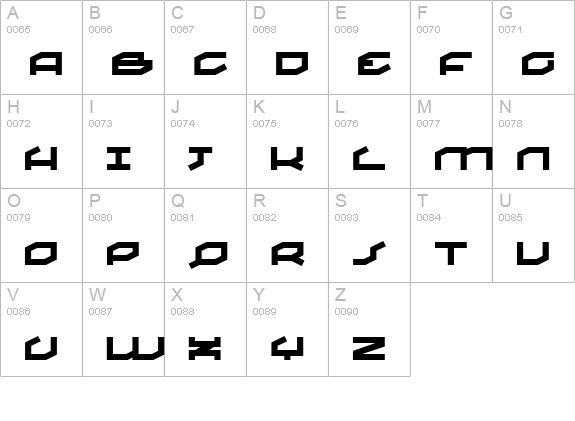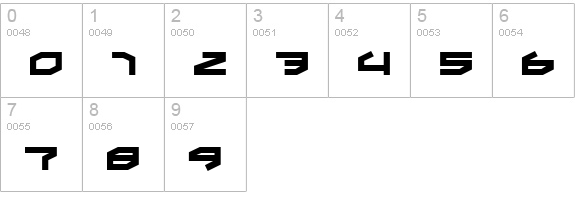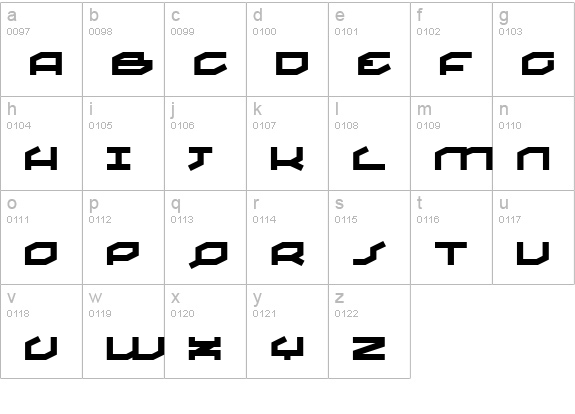
tricky Font Details
Introducing the mesmerizing Tricky Font, a captivating typeface that will add a touch of intrigue to any design project. This font is the perfect combination of elegance and playfulness, making it ideal for a wide range of creative ventures. With its unique and intricate letterforms, Tricky Font is sure to capture attention and leave a lasting impression. Each character has been carefully crafted with precision, resulting in a visually stunning display of typography. Whether you are designing a logo, poster, or website, this font will bring your ideas to life with its undeniable charm. What sets Tricky Font apart from others is not only its exceptional design but also its accessibility. It is available for free download exclusively at FontsMarket.com. This means that you can freely incorporate this font into your projects without any cost involved, making it a valuable asset for both personal and commercial use. The versatility of Tricky Font is truly remarkable. It effortlessly adapts to various design styles, whether you prefer a modern, minimalist look or a bold and vibrant aesthetic. Its wide range of ligatures and alternates allow for endless possibilities, ensuring that your designs will always stand out from the crowd. But Tricky Font is not just visually stunning; it is also incredibly easy to work with. Its well-organized character set and extensive language support make it a breeze to use in any project, regardless of the language or typography requirements. So why wait? Download Tricky Font today from FontsMarket.com and unlock a world of creative possibilities. Whether you are a professional designer or an aspiring artist, this font will undoubtedly elevate your work to new heights. Embrace the elegance and playfulness of Tricky Font and let your creativity soar.